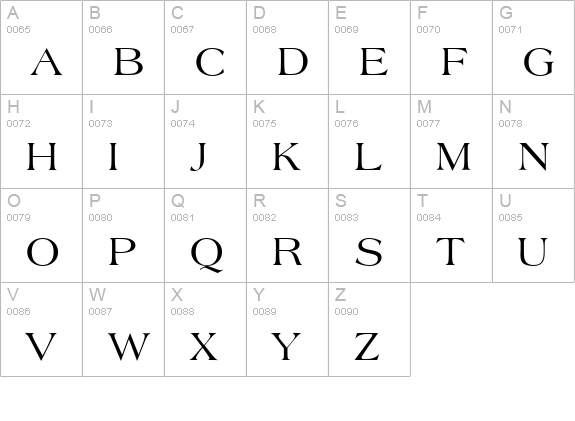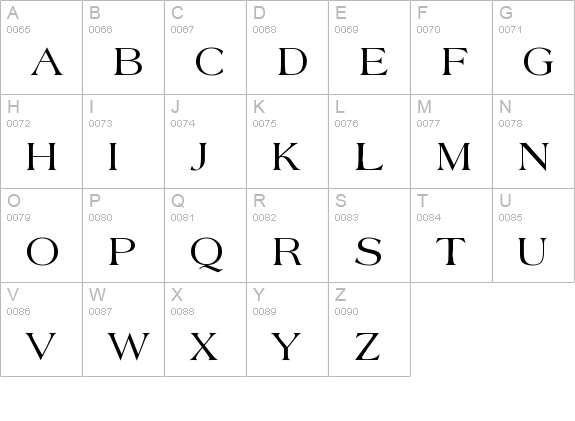
Almeria-Regular is the standard, neutral variant in the Almeria typeface family \xE2\x80\x94 well suited to general body text, paragraphs, and standard typographic work.
Almeria-Regular font is a timeless and elegant typeface that exudes sophistication and charm. Its clean lines and classic design make it versatile for a wide range of design projects, from branding to editorial layouts. The balanced proportions and subtle details of Almeria-Regular font make it a perfect choice for creating a polished and professional look. The best part about Almeria-Regular font is that it is completely free to download at FontsMarket.com. This means you can add this beautiful font to your collection without any cost, making it a valuable resource for designers and creatives alike. Don't miss out on the opportunity to enhance your projects with the timeless beauty of Almeria-Regular font - download it for free today!